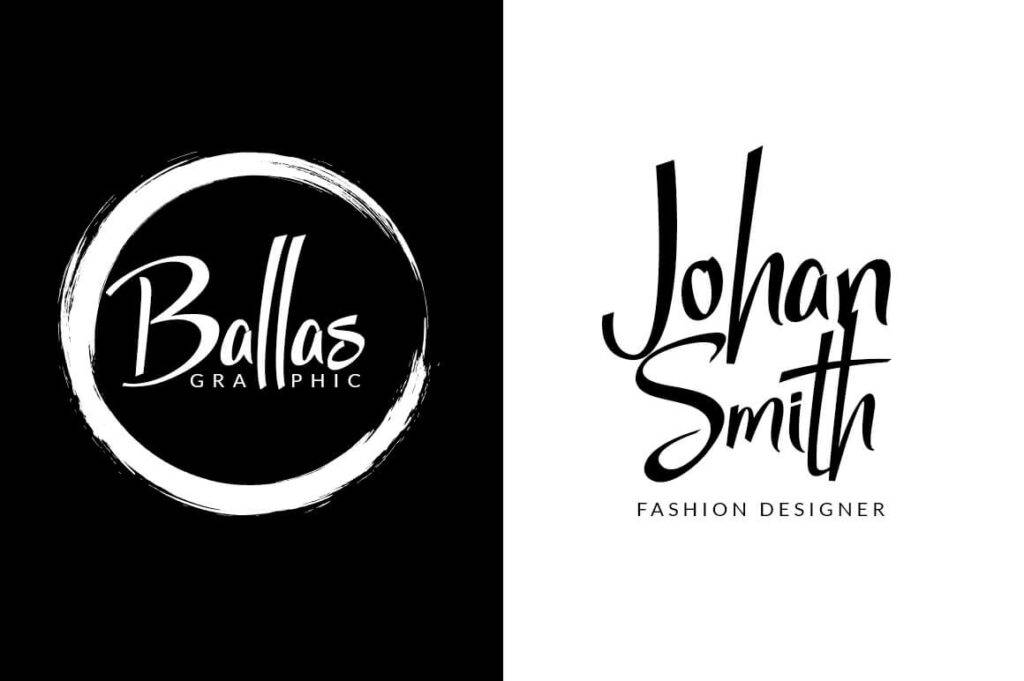
StarmiX Script Font Free
StarmiX Script Font is a gorgeous script and calligraphy font that we’re introducing today! Khurasan was the one who designed and released it. To all enthusiastic creators, StarmiX is a fresh and original font. This handcrafted typeface includes swashes and multilingual characters. The font was designed to be versatile enough to be used in a variety of projects, depending on your needs and preferences.
The font is appropriate for a wide range of projects, from casual to professional. The font can be used for professional purposes, such as presentations or for a simple logotype. The font has already been utilized on the banners of a number of coffee shops, and it looks great on them. You can also alter the texture of this typeface and use it in a variety of creative projects.
| Name | StarmiX Script Font Free |
| Style | Script, Calligraphy |
| Designer | Khurasan |